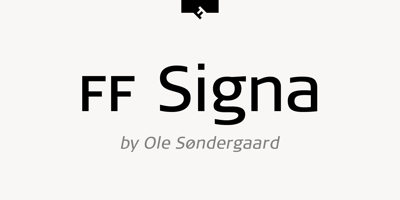
FF Signa Font is a clean, modern, and highly versatile sans-serif typeface, designed to excel in a vast array of communication needs. Created by Ole Søndergaard, its balanced proportions and crisp readability make it an excellent choice for corporate identities, editorial design for magazines and newspapers, wayfinding and signage systems, and digital interfaces. Imagine it providing clear and accessible text for a major public transportation system, lending a refined yet approachable feel to an international conference's branding, or ensuring impeccable clarity for on-screen publications and mobile applications. This font is also superb for advertising campaigns, packaging design, and any project where professionalism, clarity, and a harmonious visual identity are paramount across various media. It doesn't just display text; it communicates with universal precision and contemporary flair.
What makes FF Signa Font so exciting is its remarkable blend of Danish design sensibilities – emphasizing clarity and functionality – with a broad stylistic range that makes it incredibly adaptable. It offers excellent legibility even in challenging environments, thanks to its carefully crafted letterforms and generous spacing. This unique combination allows designers to create visually compelling content that is both highly effective and aesthetically pleasing, fostering a sense of trust and professionalism. It’s a font that speaks with a clear, authoritative voice, making it ideal for brands and content creators who want to convey reliability, innovation, and a sophisticated, straightforward aesthetic. Its extensive family and OpenType features make it a true workhorse.
The FF Signa Font family is exceptionally comprehensive, offering a vast array of weights, widths, and styles, making it a true super-family system. This extensive range provides unparalleled design flexibility and allows for nuanced typographic expressions. You can expect to find a rich array of options to support diverse layout needs, including:
• FF Signa Extra Light
• FF Signa Light
• FF Signa Book
• FF Signa Regular
• FF Signa Medium
• FF Signa SemiBold
• FF Signa Bold
• FF Signa Heavy
• FF Signa Black
• FF Signa Ultra (or similar heaviest weights)
• FF Signa Condensed (in various weights)
• FF Signa Extended (in various weights)
• FF Signa Italic / Oblique (for most, if not all, weights and widths)
• FF Signa Correspondence (versions optimized for smaller text)
• FF Signa Serif (a serif companion family)
• FF Signa Stencil (a stencil companion family)
• FF Signa Round (a rounded companion family)